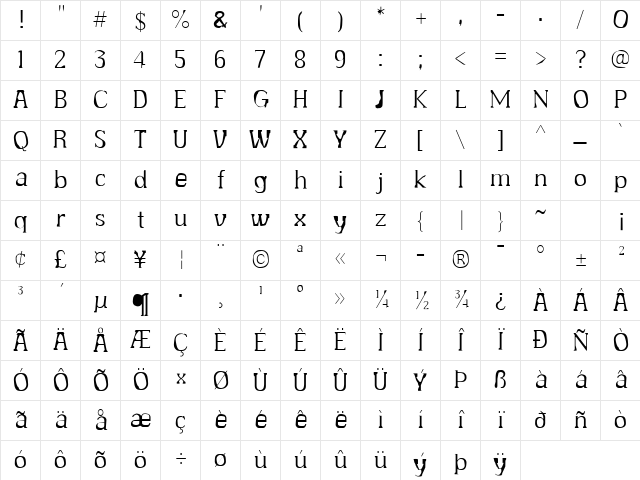
Angobie is a composed and adaptable typeface that performs quietly and consistently across a wide range of design contexts. Its slender proportions lend an understated elegance to any composition.
Pro Tip: Use Angobie in both headline and body roles to test its range before committing to a single application.